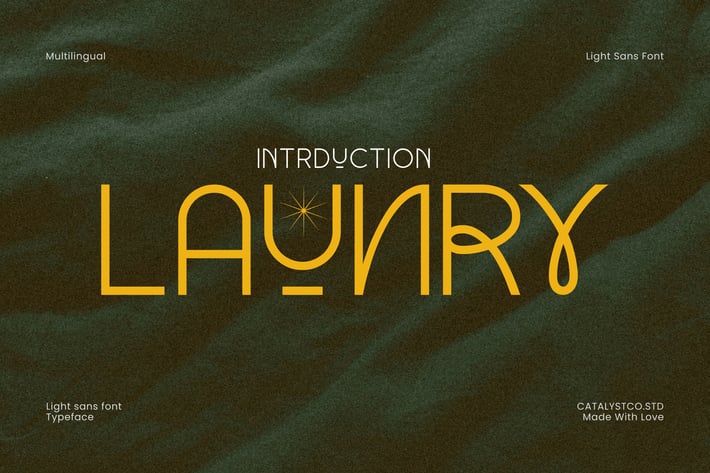
Launry Light Sans Font
Launry Elegant Sans Fontis a sleek light sans serif font that embraces modernism and simplicity with a futuristic soul. Designed with geometric balance and creative twists, itβs perfect for projects that need a tech font, minimalist font, or clean layout for logo, branding, or technology fonts. Its unique letterforms give a subtle sci-fi and space font feel while remaining versatile and professional. Launry also supports multilingual characters, making it a stylish solution for both digital and editorial design in modern branding.
SUITABLE FOR / USE CASES tech font, technology fonts, modern sans serif, space font, logo font, minimalist font, technology logo, futuristic, branding, clean layout, editorial, multilingual, modern display, fashion, sci-fi project, creative brand, professional font, headline, geometric font, stylish
Main Features
Ligatures & Alternate
Numeral & Punctuations